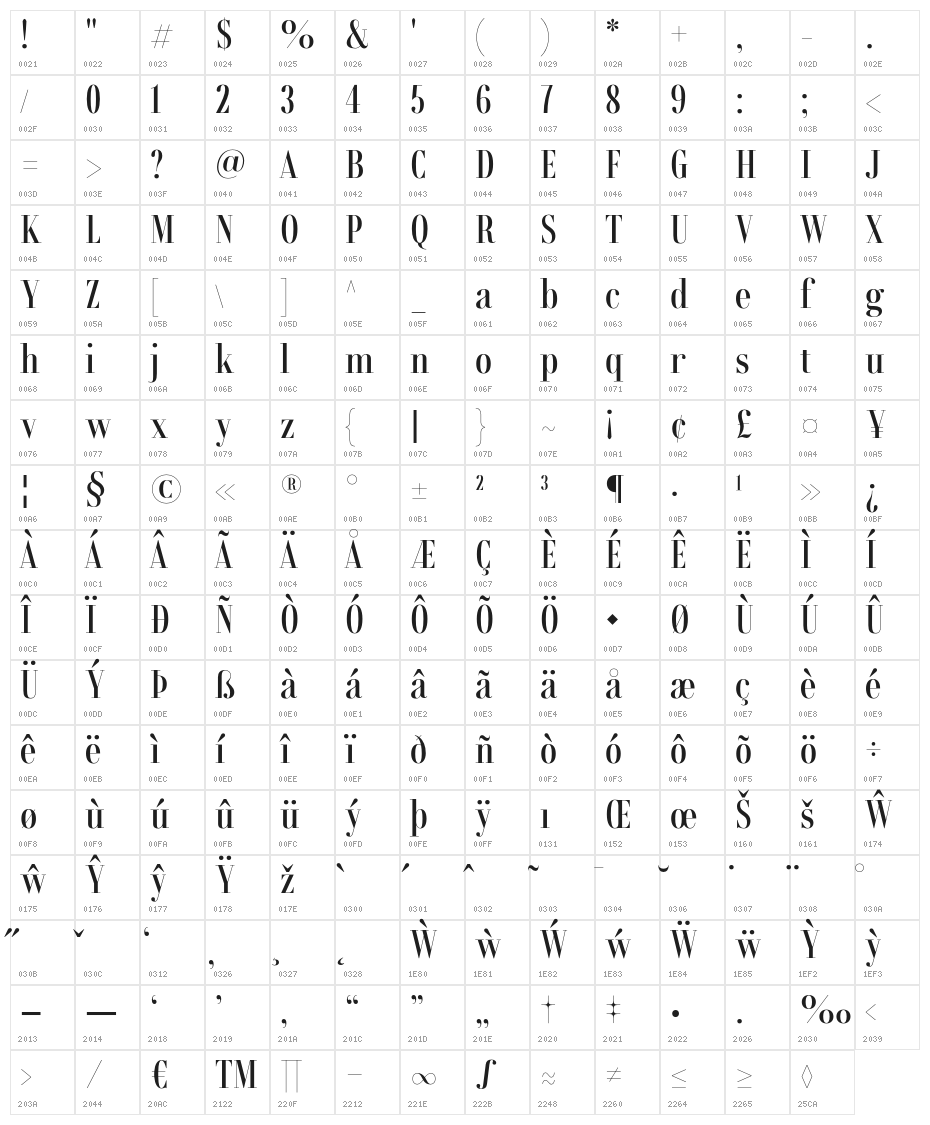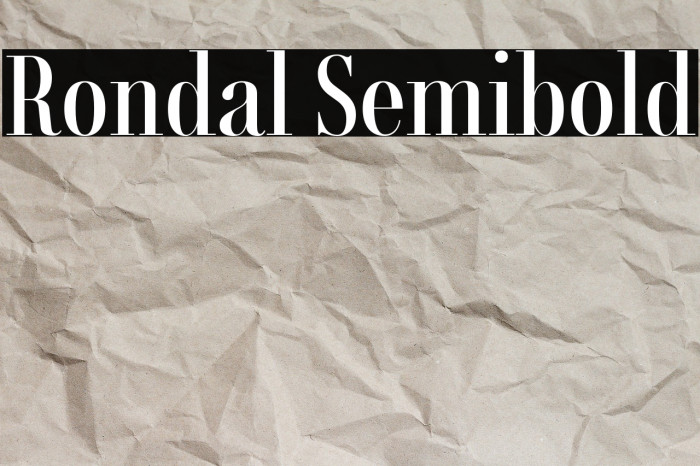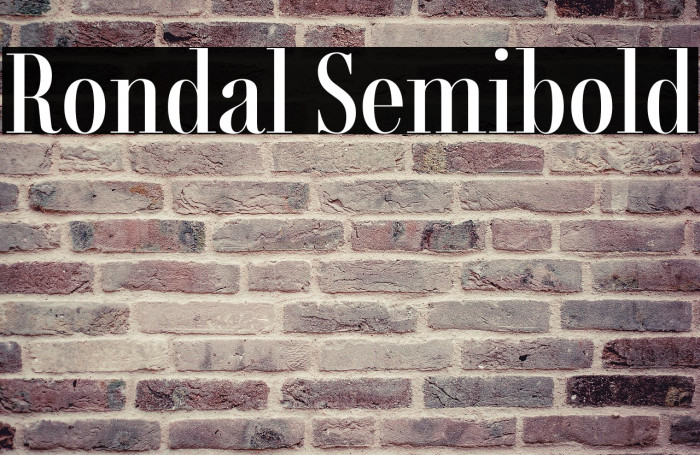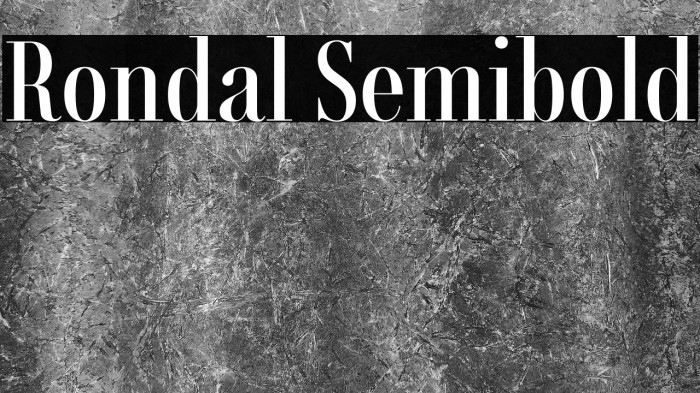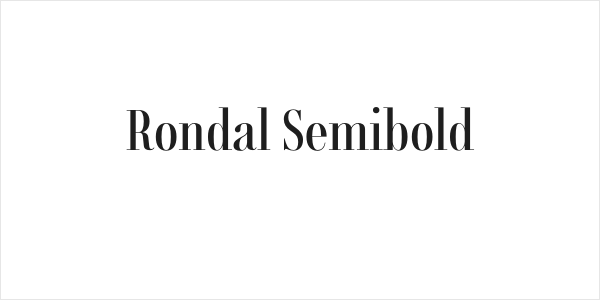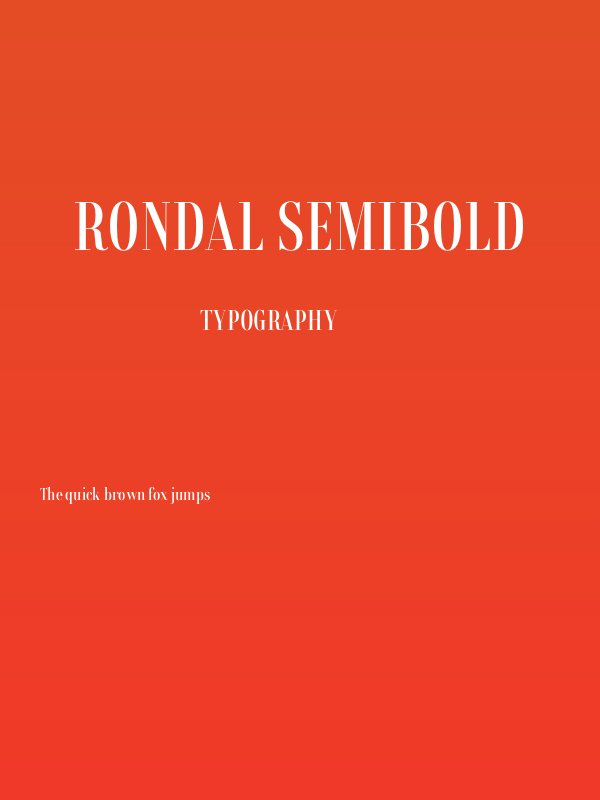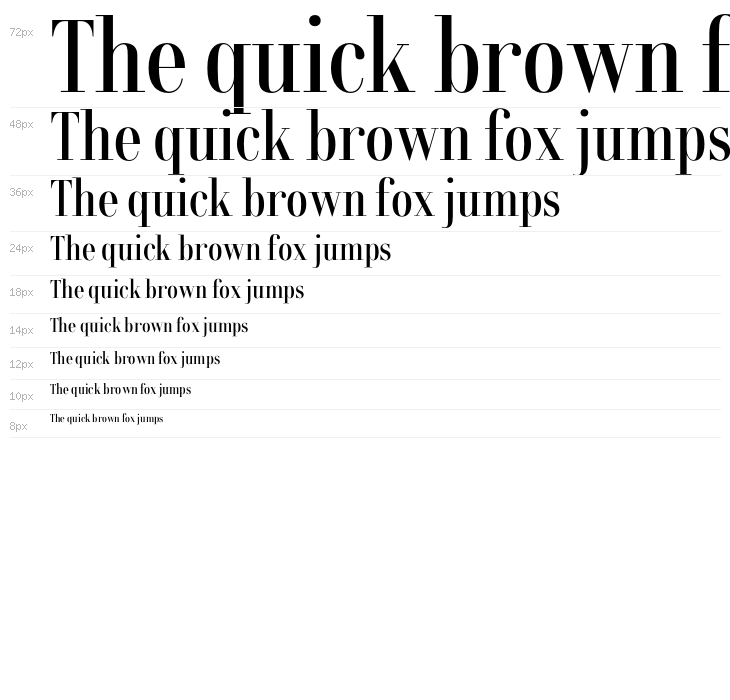
Rondal Semibold Font
Rondal Semibold Description
This font features a classic serif style with a modern twist, characterized by its elegant and refined letterforms. The uppercase letters are tall and commanding, while the lowercase letters maintain a balanced and harmonious appearance. The numerals are distinct and easily readable, adding to the font's versatility. Special characters are crafted with precision, enhancing the overall aesthetic. The font's semi-bold weight provides a strong presence without overwhelming the design, making it suitable for a variety of applications.
| Proposed Projects | Ideal for editorial design, book covers, branding, and sophisticated advertising campaigns. |